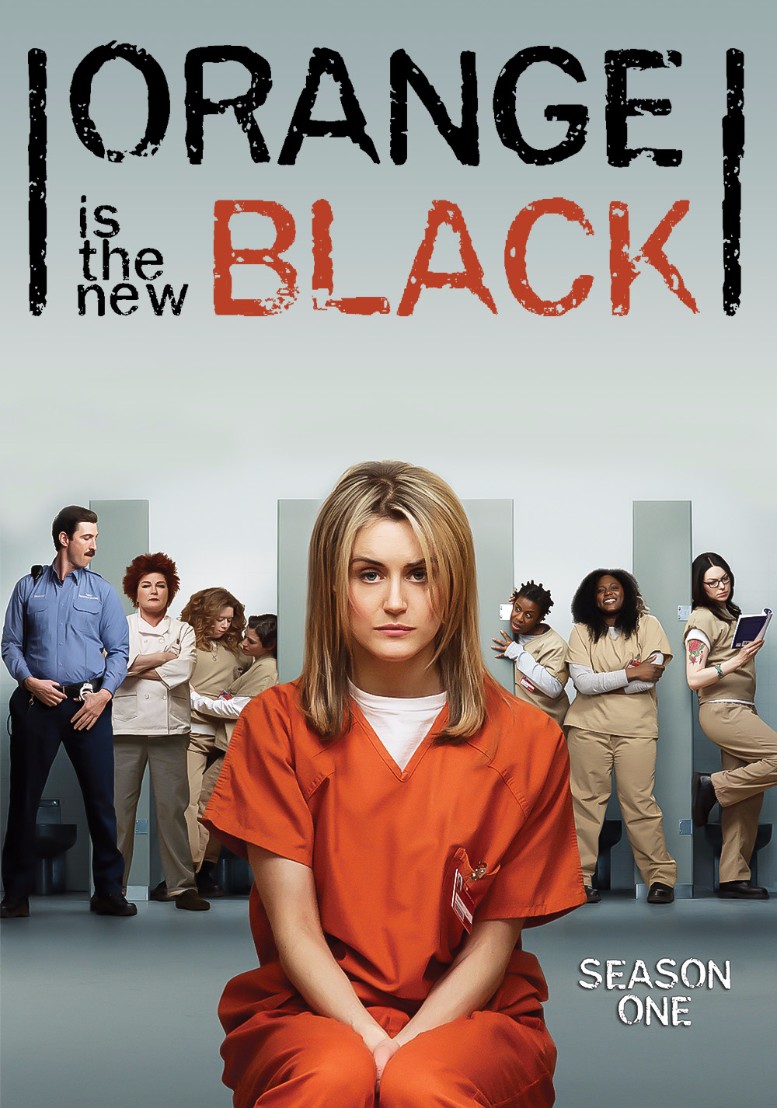
Orange Is the New Black Font
DramaOrange Is the New Black s a Netflix original series that follows the lives of women in federal prison. The show explores themes of race, class, sexuality, and religion, and examines the criminal justice system and its impact on marginalized communities.
The TV show's logo was probably created using Damaged Cuts, a rough sans-serif font by Jakob Fischer. Learn more about the font here.